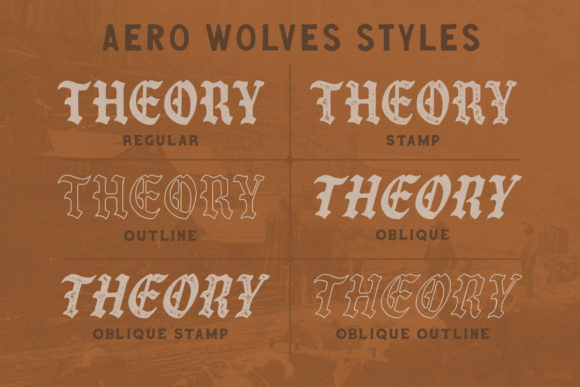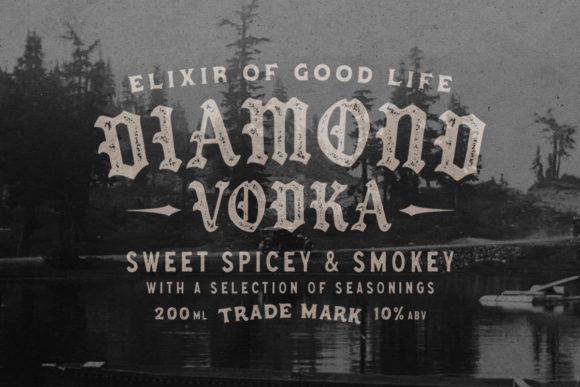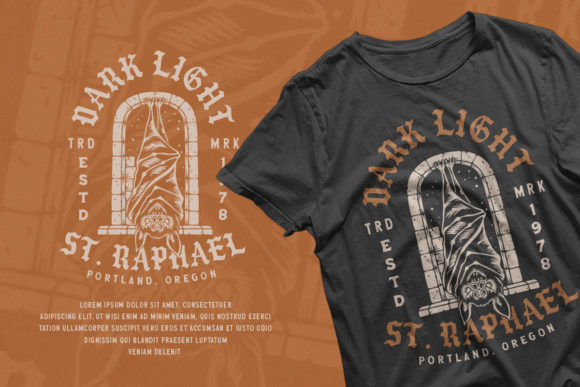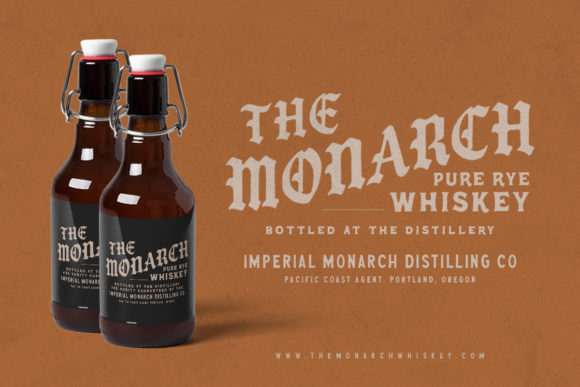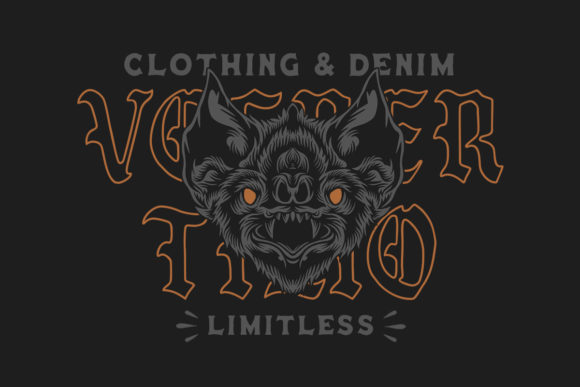
I still remember the frustration of working on a project, hours spent crafting the perfect design, only to hit a roadblock: finding the right font. My client wanted something bold, something that would make their brand stand out, but I was stuck in a sea of bland, generic options. That’s when I stumbled upon Aero Wolves, a cool and bold blackletter font that would change the game.
Aero Wolves: The Game-Changing Font
Aero Wolves is a masterfully designed font that has the potential to bring each of your creative ideas to the highest level! With its sleek lines, bold strokes, and edgy vibe, it’s no wonder this font has become a favorite among designers. But what really sets Aero Wolves apart is its versatility – it’s perfect for a wide range of projects, from bold logos and titles to eye-catching posters and flyers.
• ✨ Bold and eye-catching: Aero Wolves is not for the faint of heart. This font makes a statement and demands attention.
• ✅ Highly legible: Despite its boldness, Aero Wolves remains surprisingly legible, even at smaller sizes.
• 💡 OpenType features: Aero Wolves comes with a range of OpenType features, including stylistic alternates and glyphs, giving you even more creative control.
While Aero Wolves is an amazing font, it’s not perfect. Here are a few things to keep in mind:
• 🤔 Limited use in body text: Aero Wolves is best used for headlines and titles. Its boldness can be overwhelming for longer blocks of text.
• ⚠️ Kerning issues: As with any font, you may need to adjust the kerning to get the best results, especially when using all caps.
The Designer Inspiration Behind Aero Wolves
While the true story behind Aero Wolves remains a mystery, it’s easy to imagine a designer inspired by the dark, gritty streets of urban landscapes. Perhaps they wanted to create a font that would reflect the boldness and confidence of the modern city. Whatever the inspiration, Aero Wolves is a true masterpiece.
Q: What type of projects is Aero Wolves best suited for?
A: Aero Wolves is perfect for bold logos, titles, posters, flyers, and any other project that needs a strong, eye-catching font.
Q: Can I use Aero Wolves for body text?
A: While Aero Wolves is legible, it’s best used for headlines and titles. For longer blocks of text, you may want to choose a more traditional font.
Q: Does Aero Wolves come with OpenType features?
A: Yes, Aero Wolves comes with a range of OpenType features, including stylistic alternates and glyphs.